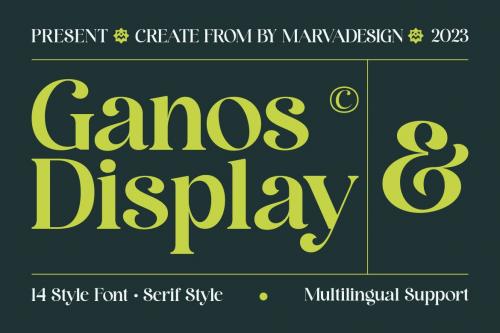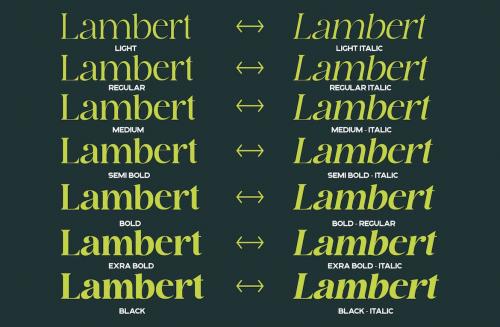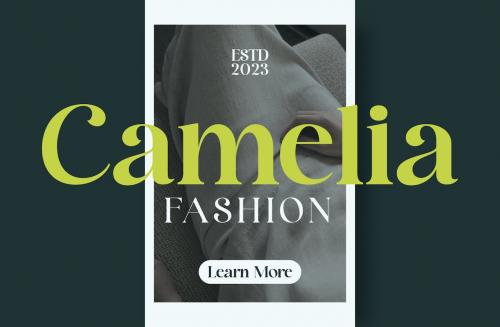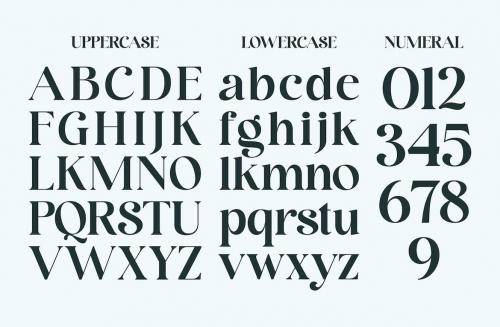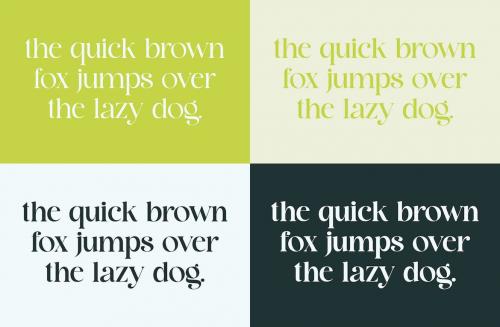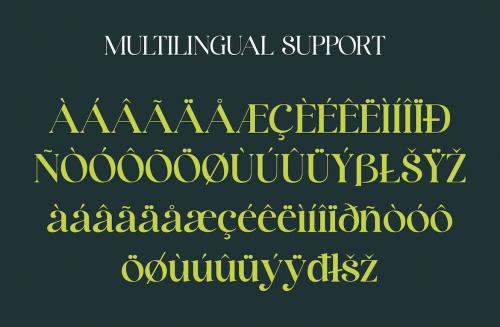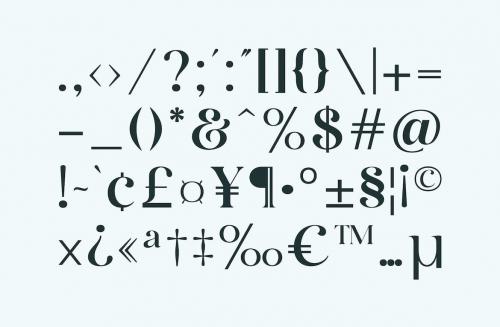
GANOS - 一种现代显示字体
Ganos - A Modern Display Font
Introducing our new product **Ganos Font Family** - Modern Font is a bold and authentic display font. The font is suitable for any branding project like logo, Template Design, Product and many more. outstanding in a wide range of contexts.
Introducing our new product **Ganos Font Family** - Modern Font
**Ganos Font Family** - Modern Font is a bold and authentic display font. The font is suitable for any branding project like logo, Template Design, Product and many more. outstanding in a wide range of contexts.
* 14 Style
* Uppercase
* Lowercase
* Multilingual